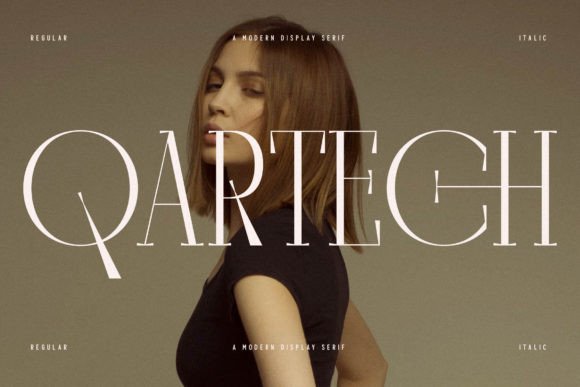
Behold the Qartech Font, a serif font family that exudes elegance and sophistication, leaving an everlasting impression on your designs. Step into the world of minimalist design, where simplicity meets timeless beauty. Unleash your creativity and let your ideas flourish with Qartech, a font crafted for those who appreciate the subtle nuances of typography.
With its modern and classic appeal, Qartech is the perfect font for creating captivating logos that command attention. Its clean lines and delicate serifs add a touch of sophistication to any design, making it ideal for branding, marketing materials, and web design. Qartech's versatility extends beyond logos; it excels in book covers, movie titles, fashion branding, magazines, apparel, lettering, and more.
Immerse yourself in the world of Qartech and discover a font that seamlessly blends tradition and modernity. Its PUA encoding opens up a realm of possibilities, allowing you to effortlessly access a vast collection of glyphs and ligatures, adding depth and character to your designs. Whether you're a seasoned designer or just starting your creative journey, Qartech is the font that will elevate your work to new heights.
With Qartech Typeface, you'll embark on a journey of creativity, innovation, and expression. Its versatility grants you the freedom to explore endless possibilities, transforming your designs into captivating masterpieces. Experience the allure of Qartech, a font that will ignite your passion for design and leave a lasting impact on your audience.